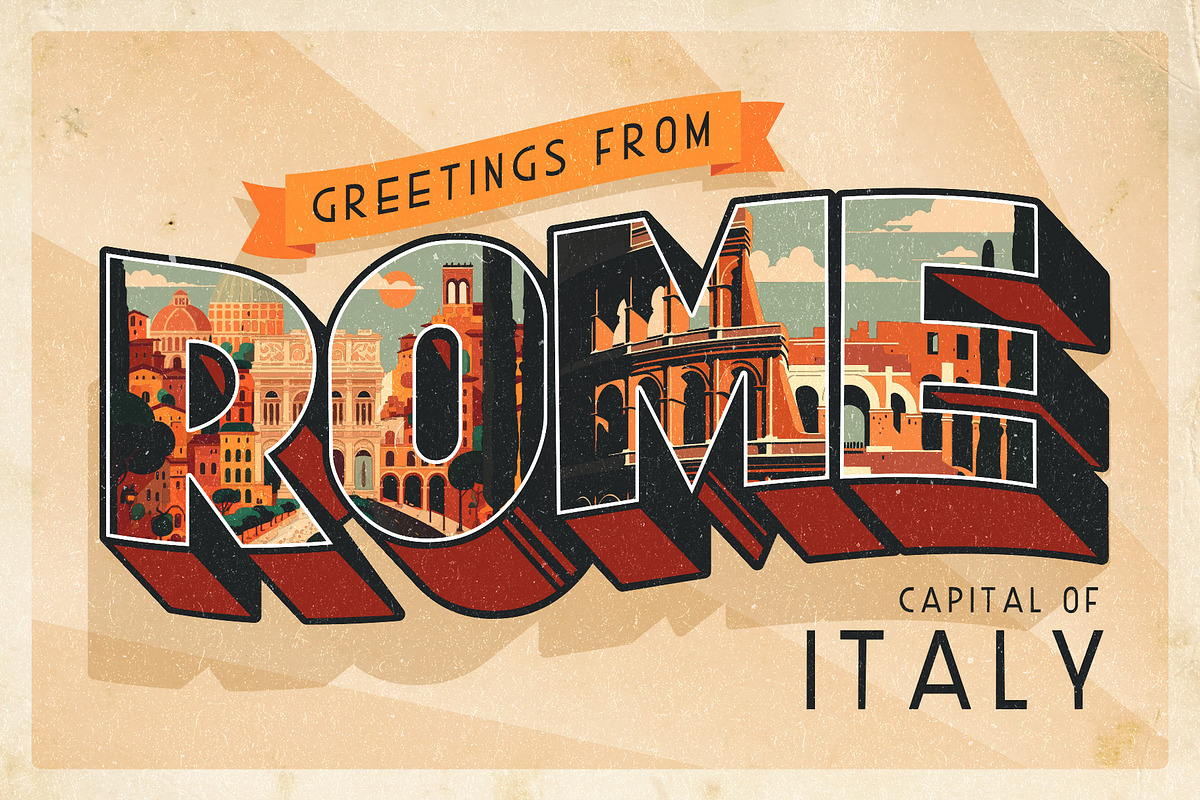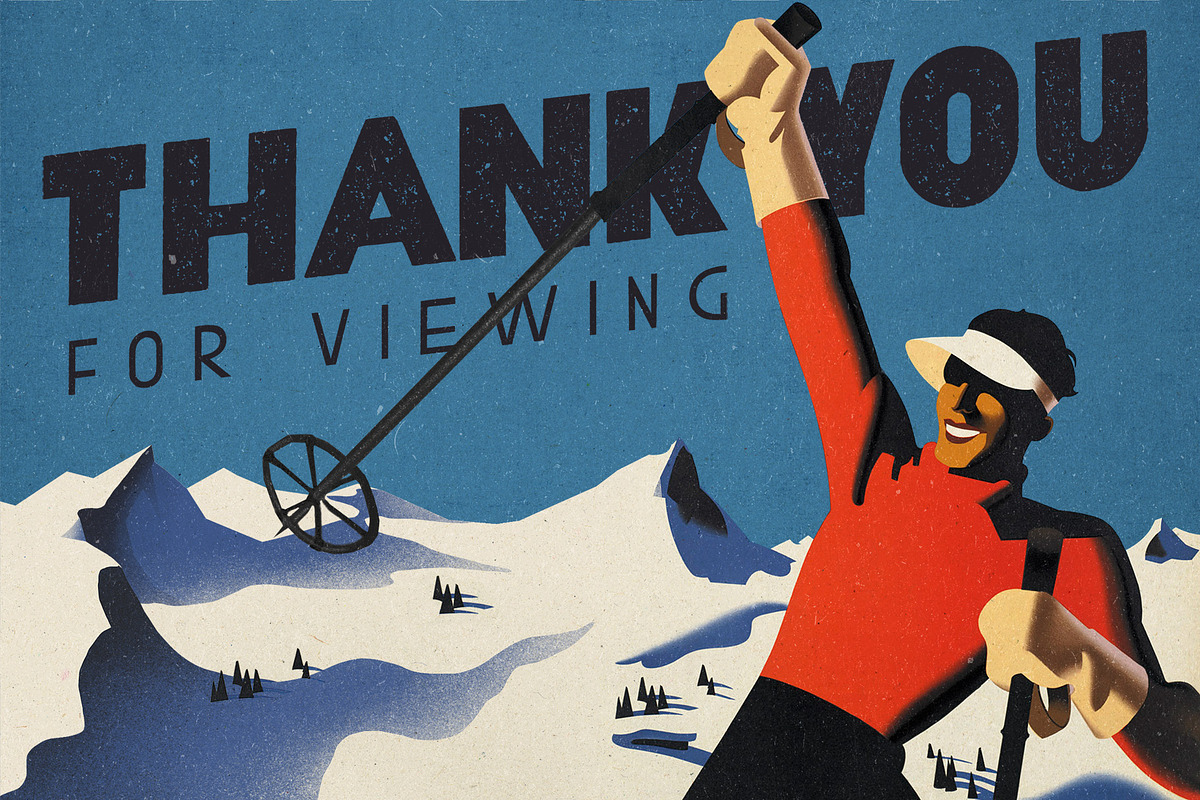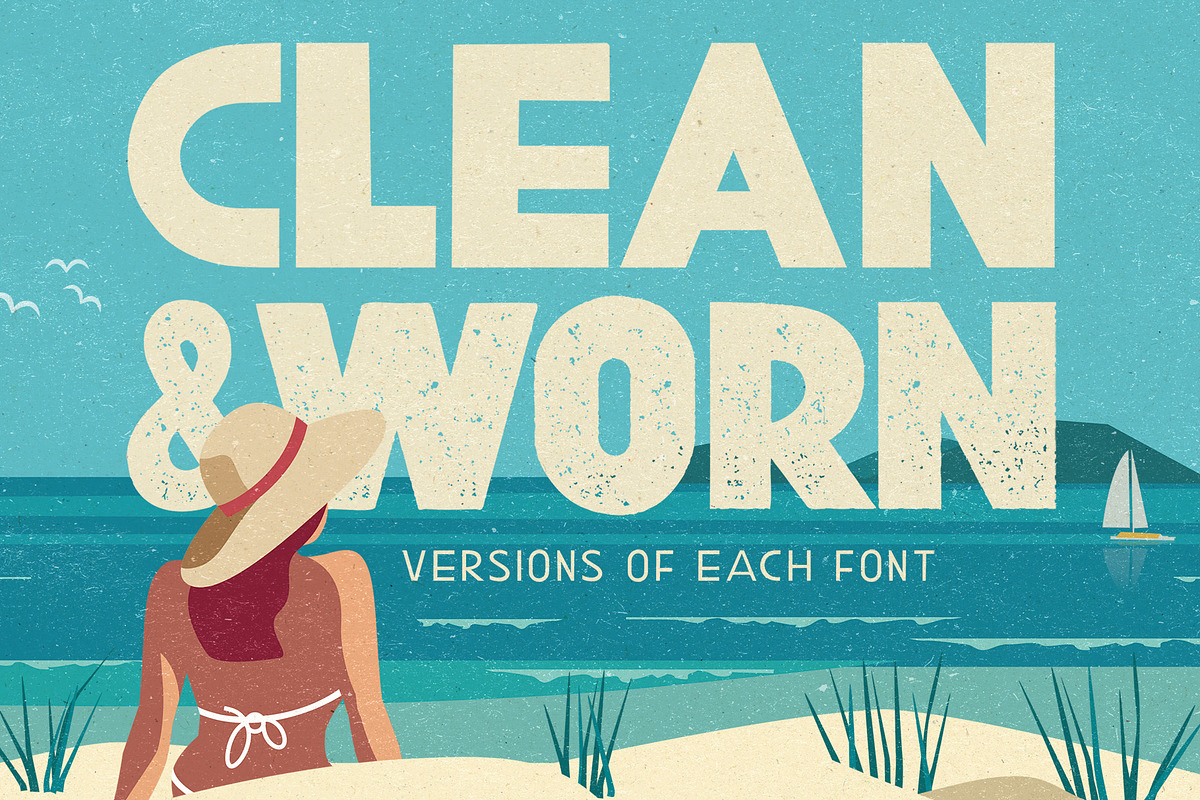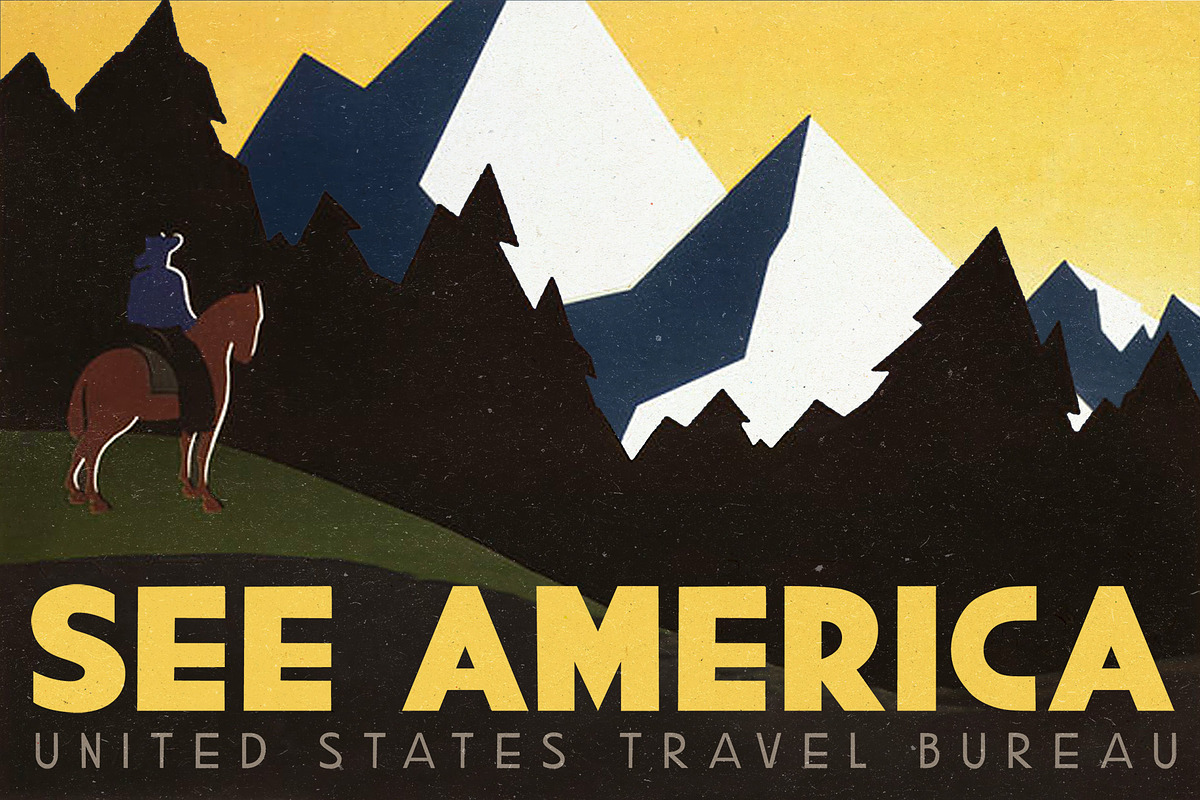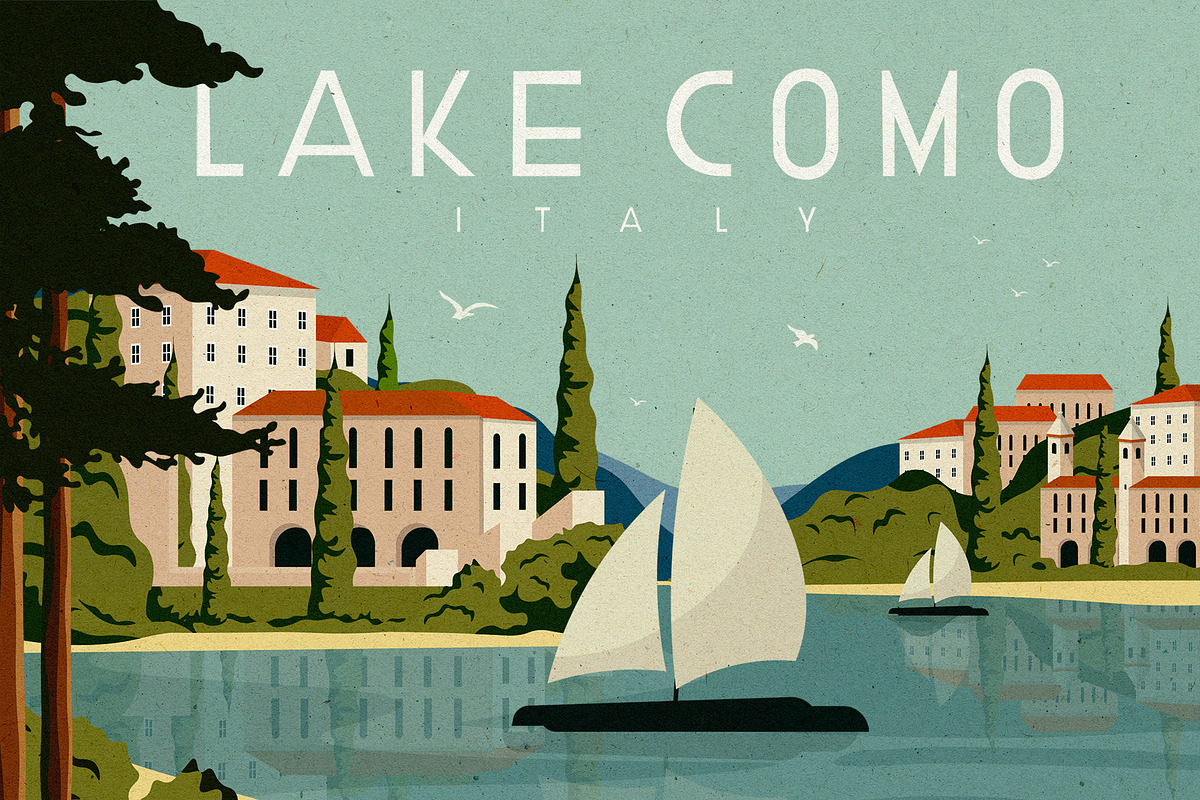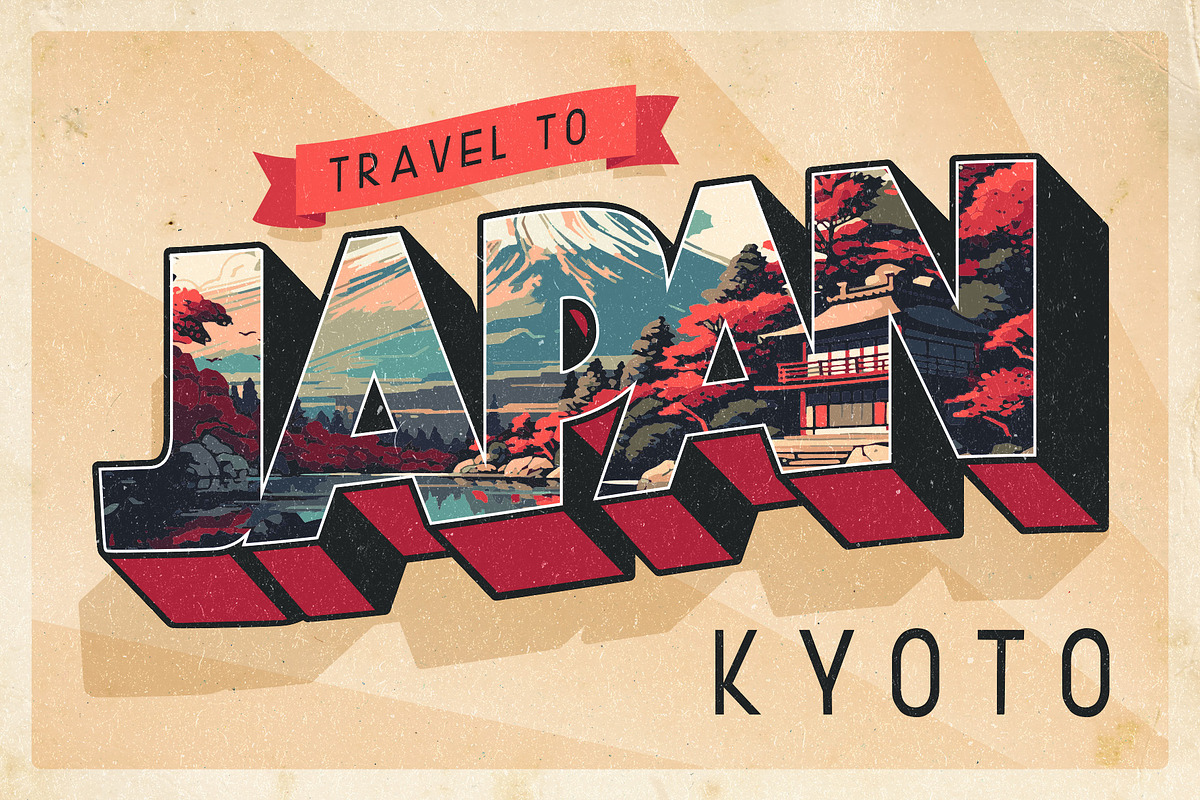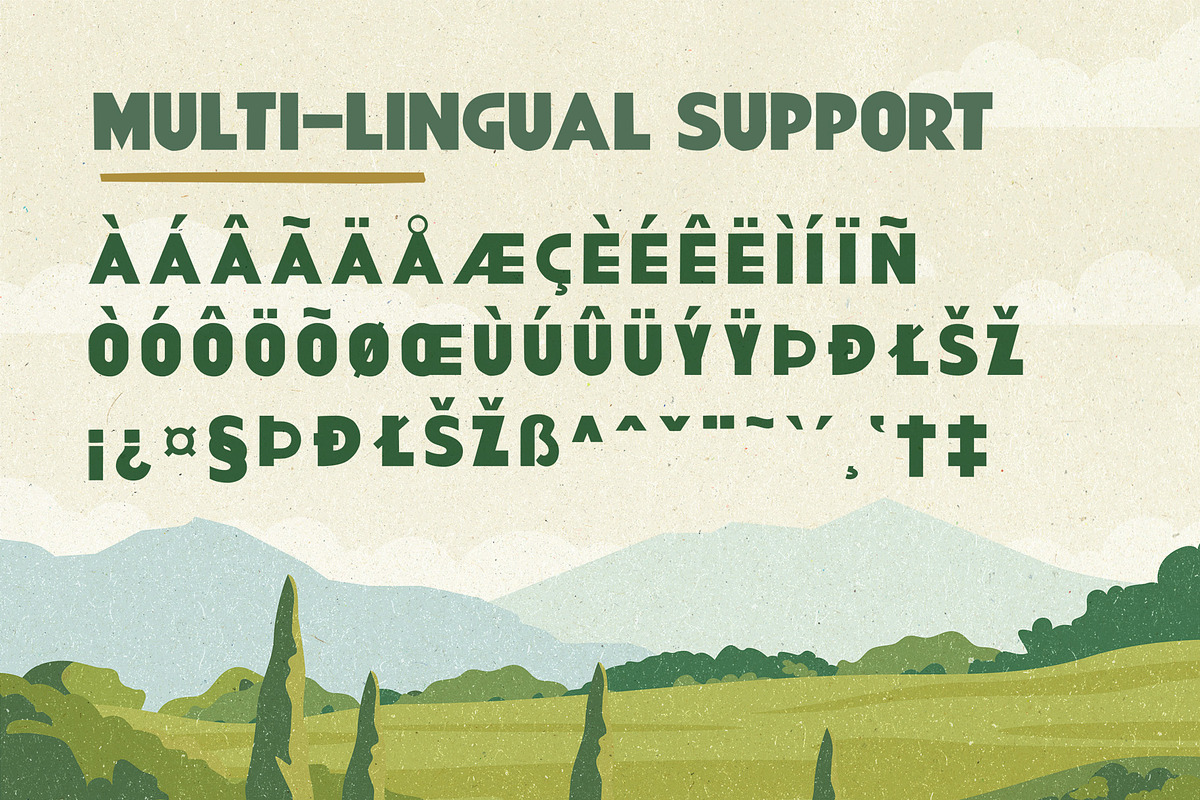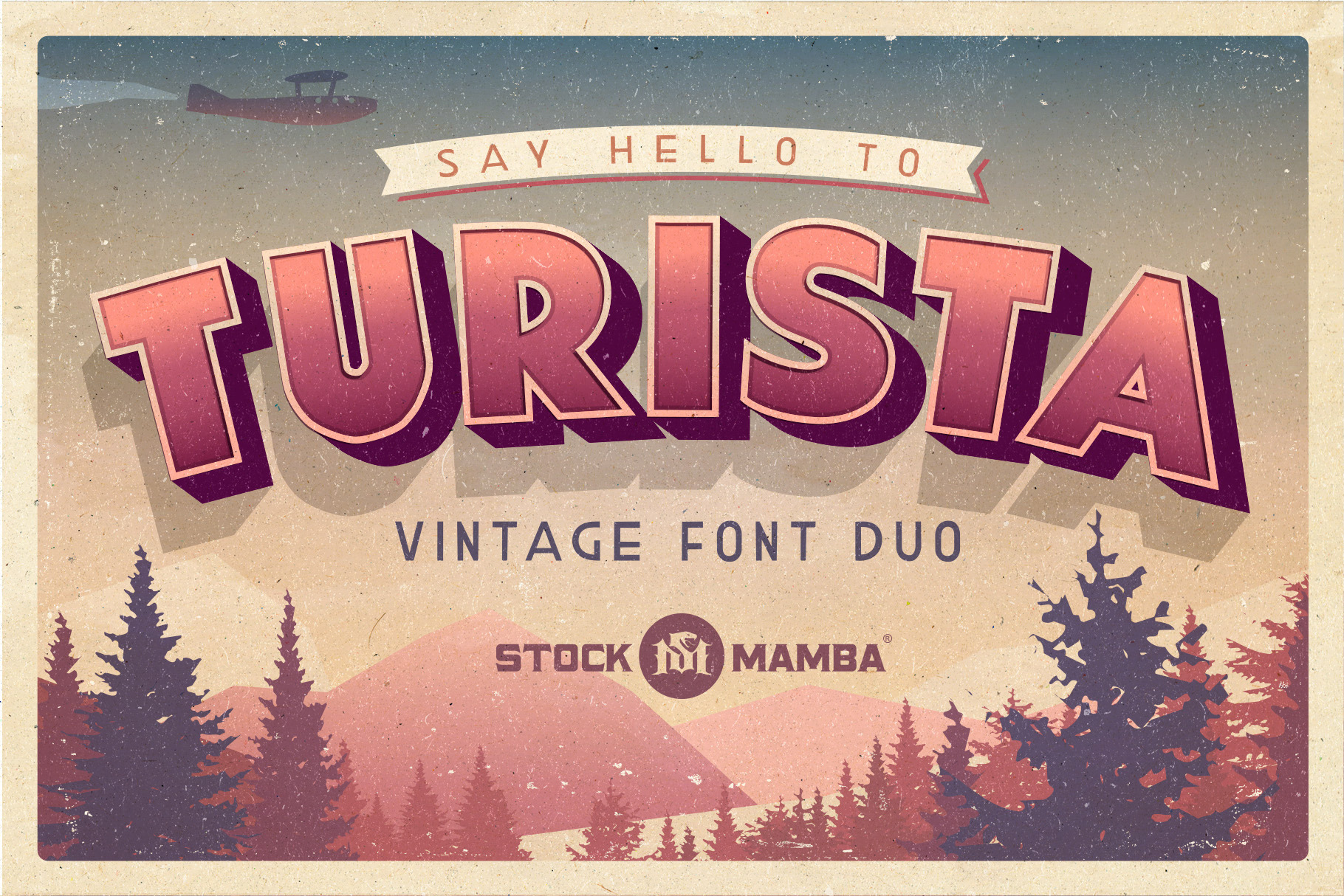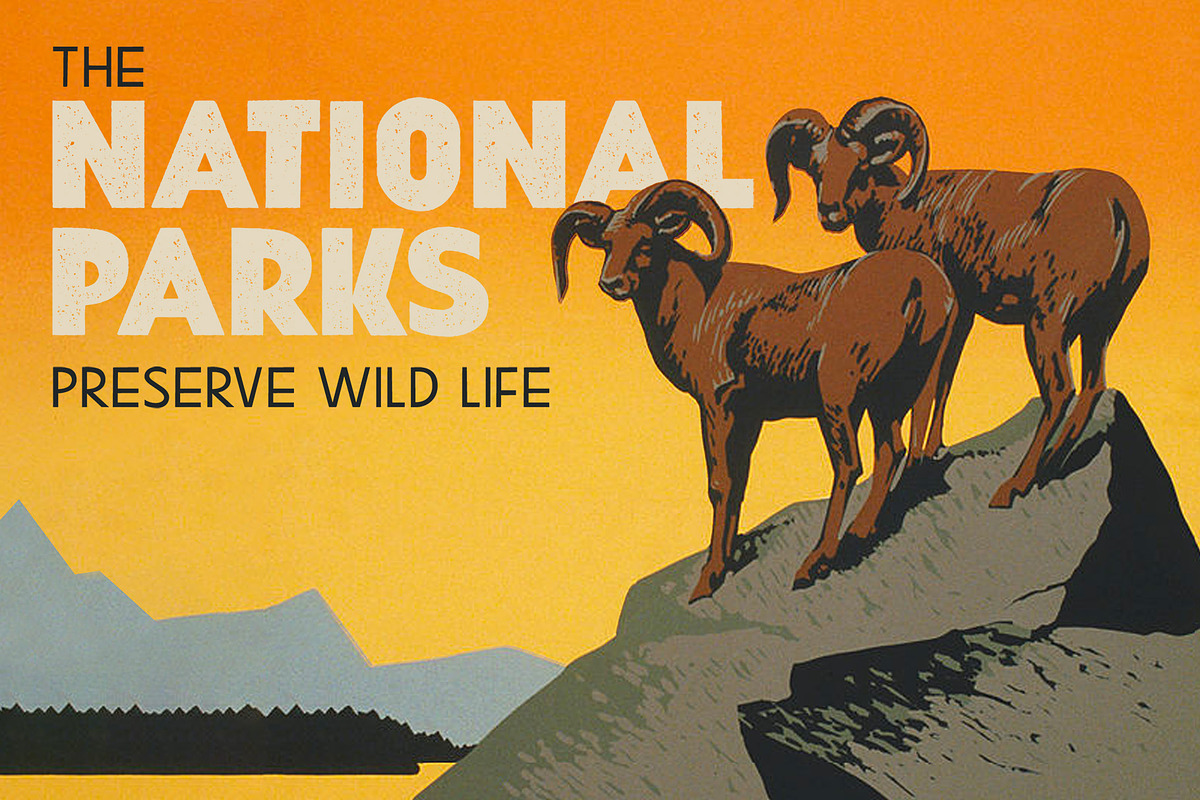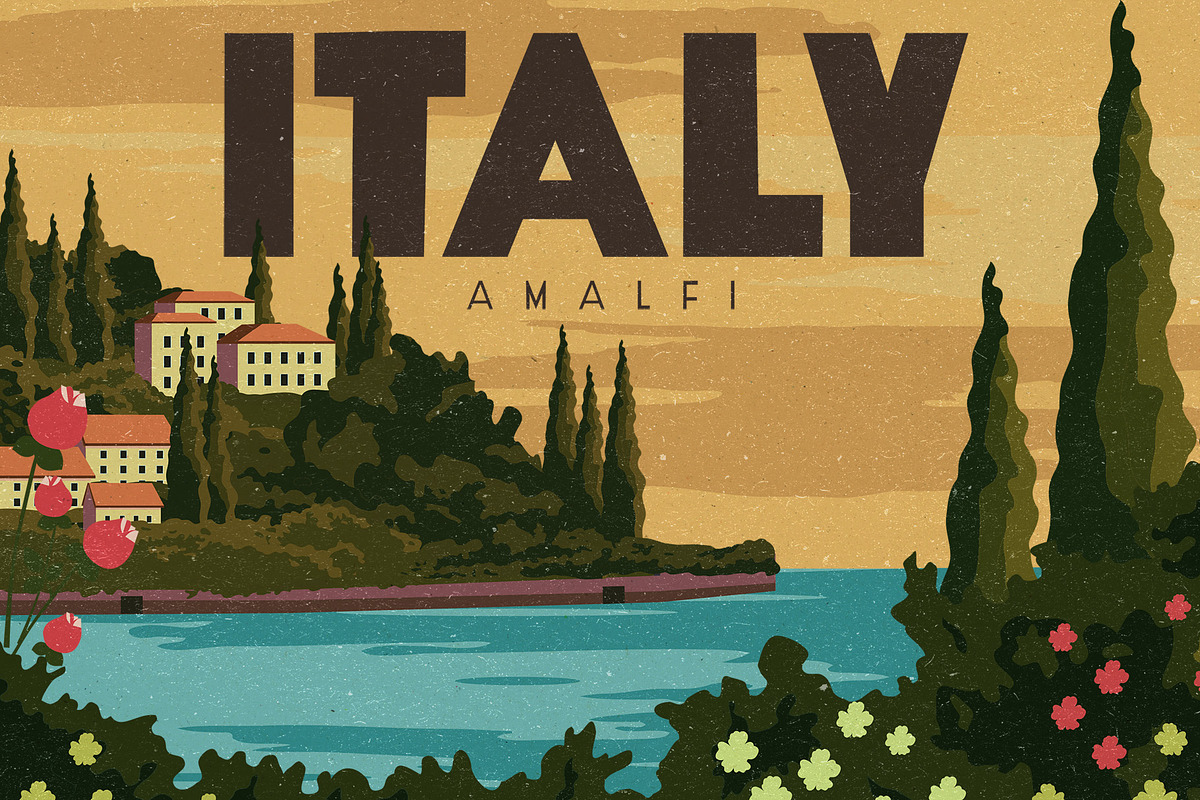
Turista Vintage Font Duo
Turista is a perfectly imperfect vintage display font inspired by the golden age of travel poster / postcard art during the early to mid 20th Century. Turista also works well for invitations, labels, logos, greeting & wedding card, packaging, labels or really anything that requires a touch of historic charm. Turista comes with clean and slightly worn versions of two weights (Heavy and Regular). All versions are also multi-lingual so that your designs can travel globally :)